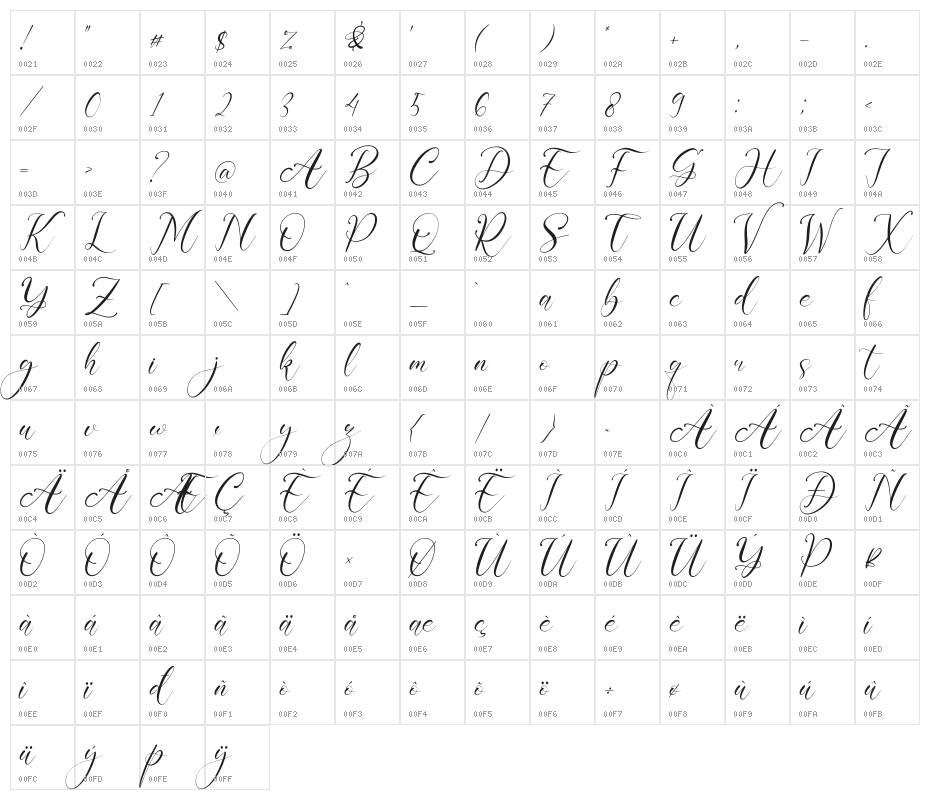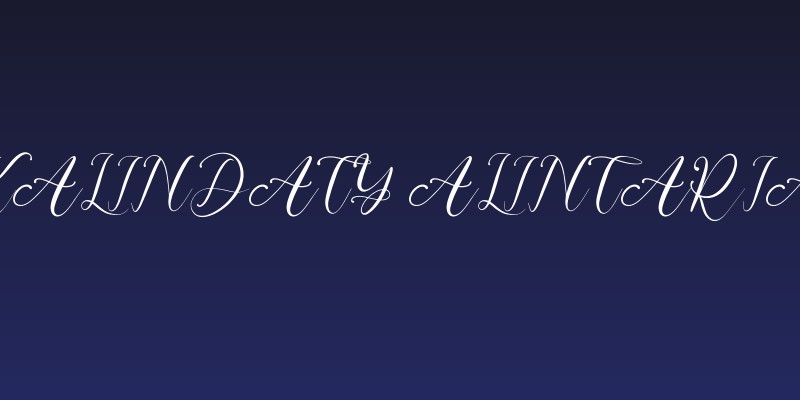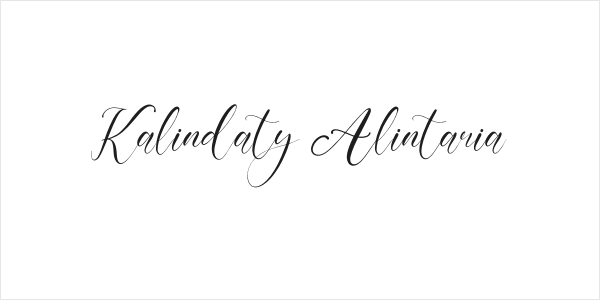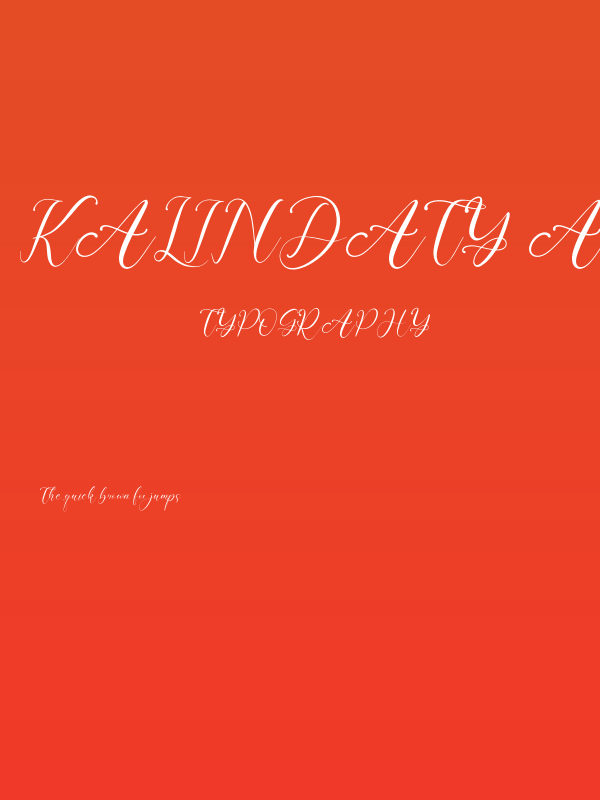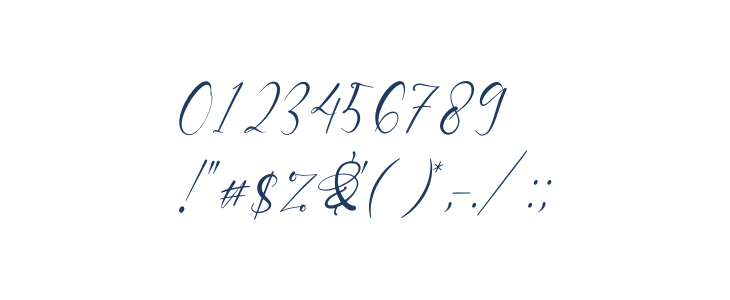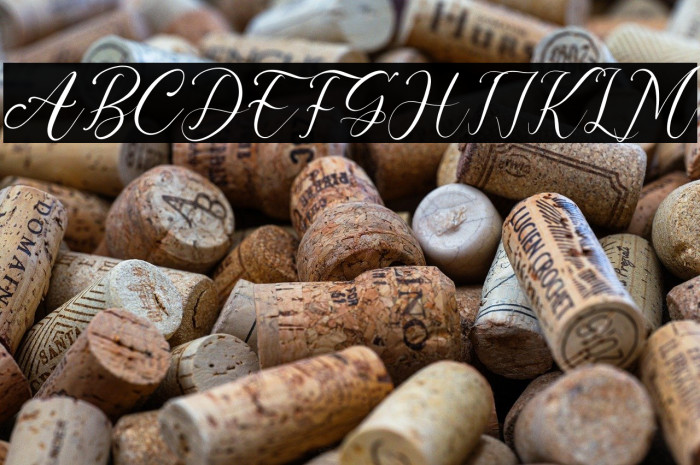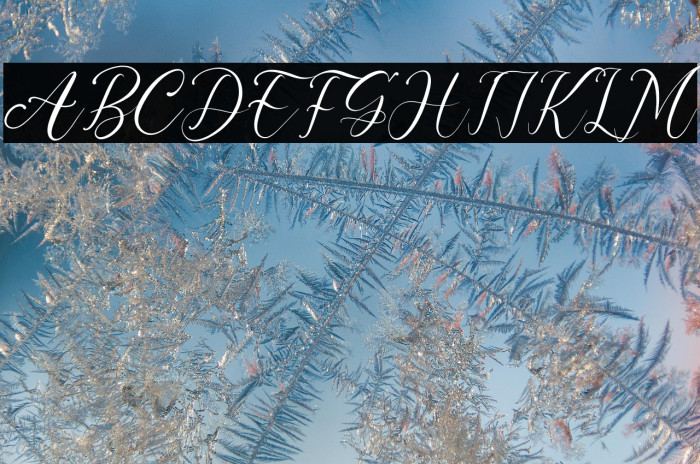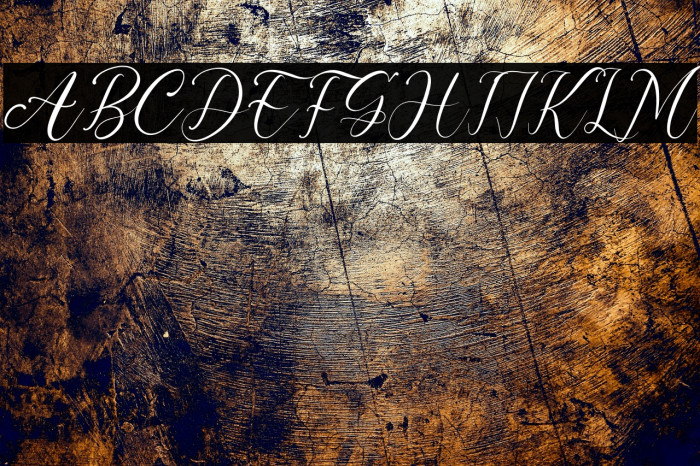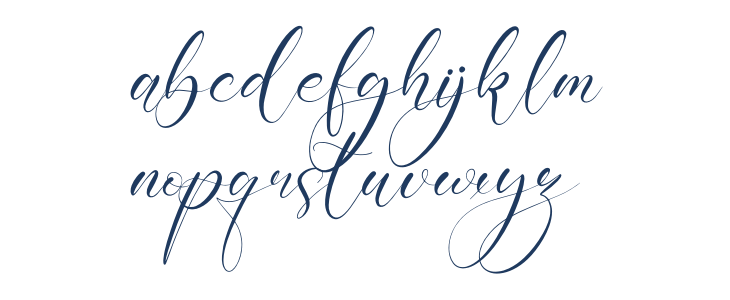
Kalindaty Alintaria Font
Kalindaty Alintaria Description
This elegant script font features flowing, interconnected letters with a sophisticated flair. The uppercase letters are tall and graceful, with sweeping curves and delicate flourishes that add a touch of luxury. The lowercase letters maintain a consistent style, with smooth transitions and a harmonious balance between thick and thin strokes. The numerals are stylishly crafted, complementing the overall aesthetic of the font. Special characters are thoughtfully designed, enhancing the font's versatility for various design applications. The font's intricate details and artistic strokes make it ideal for projects that require a touch of elegance and refinement.